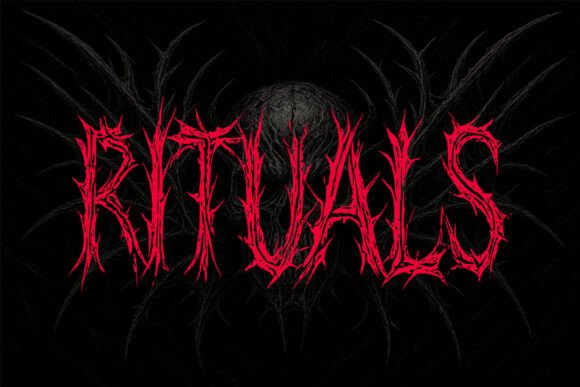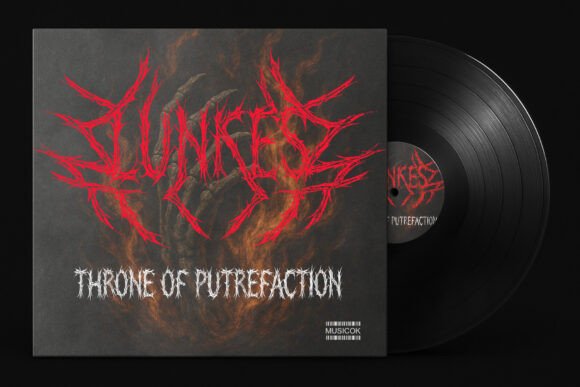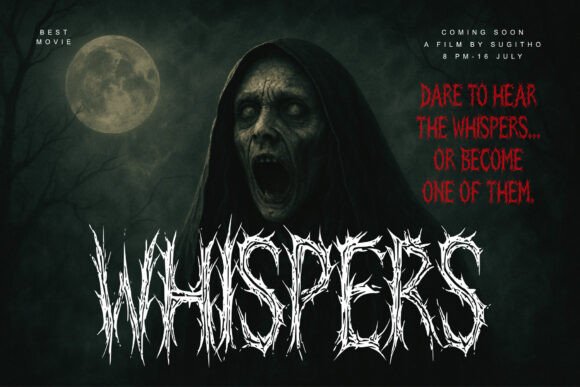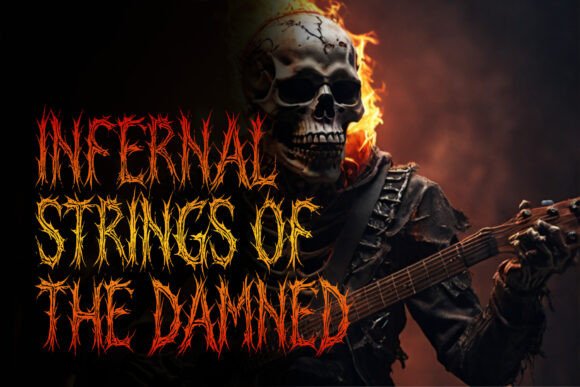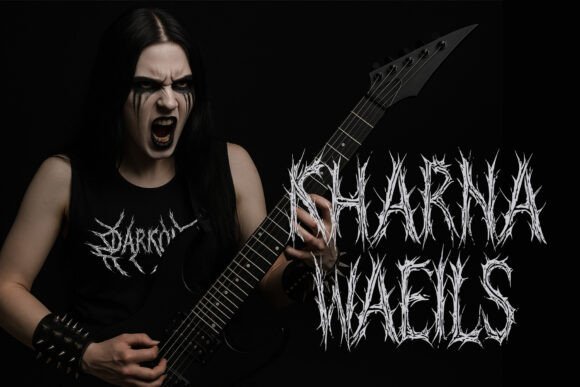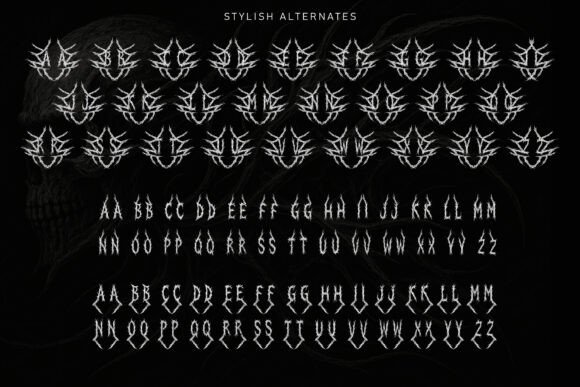
Introduction to Darkon Font
Have you ever found yourself stuck in a creative rut, searching for that one font that will elevate your project from bland to bold? I know I have. It was during one such moment, when I stumbled upon a death metal album cover, that I discovered the Darkon Font – a game-changer for designers who dare to be different. This modern death metal typeface is not just a design resource, but a tool to unleash your inner extremity and create a visual identity that’s truly unforgettable.
The Darkon Font is a high-quality design asset that’s perfect for any creative project that requires a touch of darkness and intensity. With its sharp, sinister lines, this font is sure to captivate your audience and leave a lasting impression. And the best part? You can download it for free, complete with a transparent background, making it a valuable addition to any designer’s toolkit.
Key Features of Darkon Font
- High-quality, vector-based font design suitable for various creative projects
- Comes with a transparent background, allowing for seamless integration with any design
- Large character set with extensive language support, ideal for complex design projects
- High-resolution design (scalable to any size) for crisp and clear display on various mediums
- Perfect design resource for graphic designers, digital artists, and typographers
Honest Review: Darkon Font
I recently had the chance to work with the Darkon Font, and I must say it’s been a game-changer for my creative project. The font is available for free download, which is a major plus for designers like myself who are always on the lookout for high-quality design resources.
One of the standout features of the Darkon Font is its versatility. It works well in a variety of contexts, from titles to body text, and its transparent background makes it easy to layer over other design elements.
- Works well in a variety of contexts, from titles to body text
- May not be suitable for very large-scale projects, as it can be quite detailed
- Not as customizable as some other fonts
Overall, I’m really impressed with the Darkon Font. It’s a great addition to any designer’s toolkit, and I would definitely recommend it to anyone looking for a high-quality, free design resource.
Tips for Getting the Most Out of Darkon Font
For a high-quality design, use Darkon Font on a transparent background to create a striking visual effect. You can also combine it with other design resources for a unique and creative project. Remember to download the font for free to get the most out of it.
The Darkon Font is a versatile design resource that can be used for a variety of creative projects, including logos, posters, and social media graphics. Its high-quality design makes it perfect for designers looking to create a professional and eye-catching visual effect.